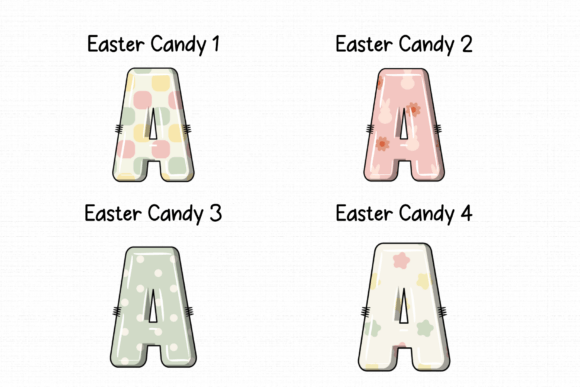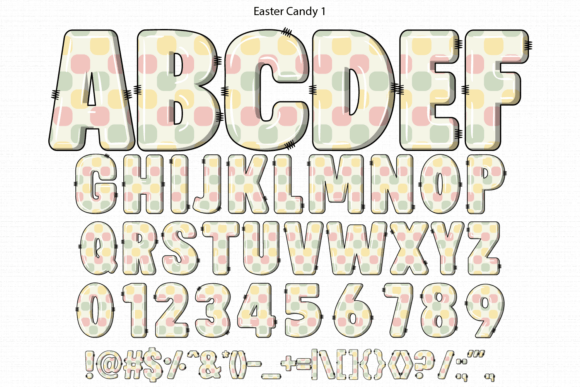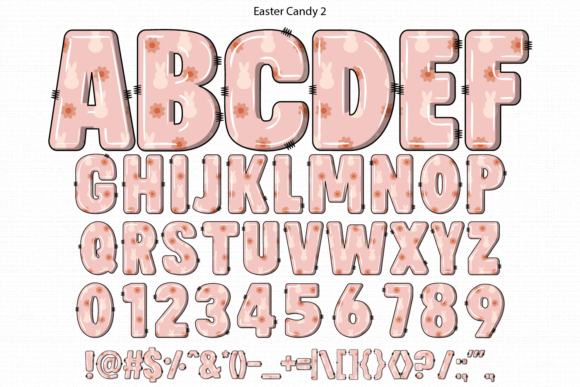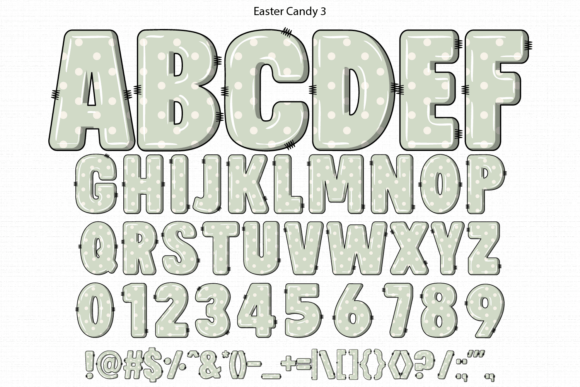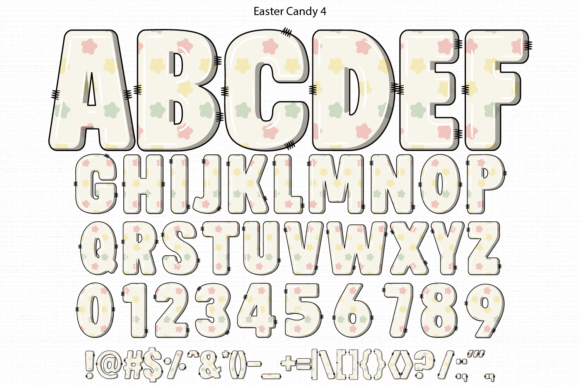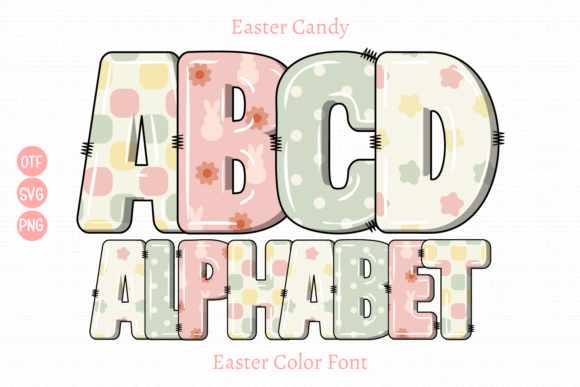
Easter Candy Font: The Perfect Addition to Your Easter-Themed Designs
Are you looking for a fun and playful font to add to your Easter-themed designs? Look no further than the Easter Candy Font! This delightful font is specifically designed to capture the spirit of Easter, making it the perfect choice for a wide range of projects, from blog posts and logos to invitations, greeting cards, and decorations.
What is Easter Candy Font?
Easter Candy Font is a color font that embodies the playfulness and authenticity of Easter. Its unique design makes it an excellent addition to any project that requires a touch of Easter cheer. Whether you’re a designer, crafter, or DIY enthusiast, this font is sure to bring a smile to your face and make your creations stand out.
Key Features of Easter Candy Font
- Playful and Authentic Design: The Easter Candy Font features a playful and authentic design that’s perfect for Easter-themed projects.
- Wide Range of Uses: This font is ideal for various projects, including blog posts, logos, branding, ads, invitations, greeting cards, planners, photo albums, decorations, and more.
- Pair with Other Easter-Themed Elements: Combine the Easter Candy Font with other Easter-themed elements, such as images, graphics, and textures, to create a cohesive and festive design.
- Experiment with Different Colors: While the Easter Candy Font comes in a range of colors, you can also experiment with different colors and gradients to create a unique look.
- Use in Combination with Other Fonts: Mix and match the Easter Candy Font with other fonts to create a visually appealing and dynamic design.